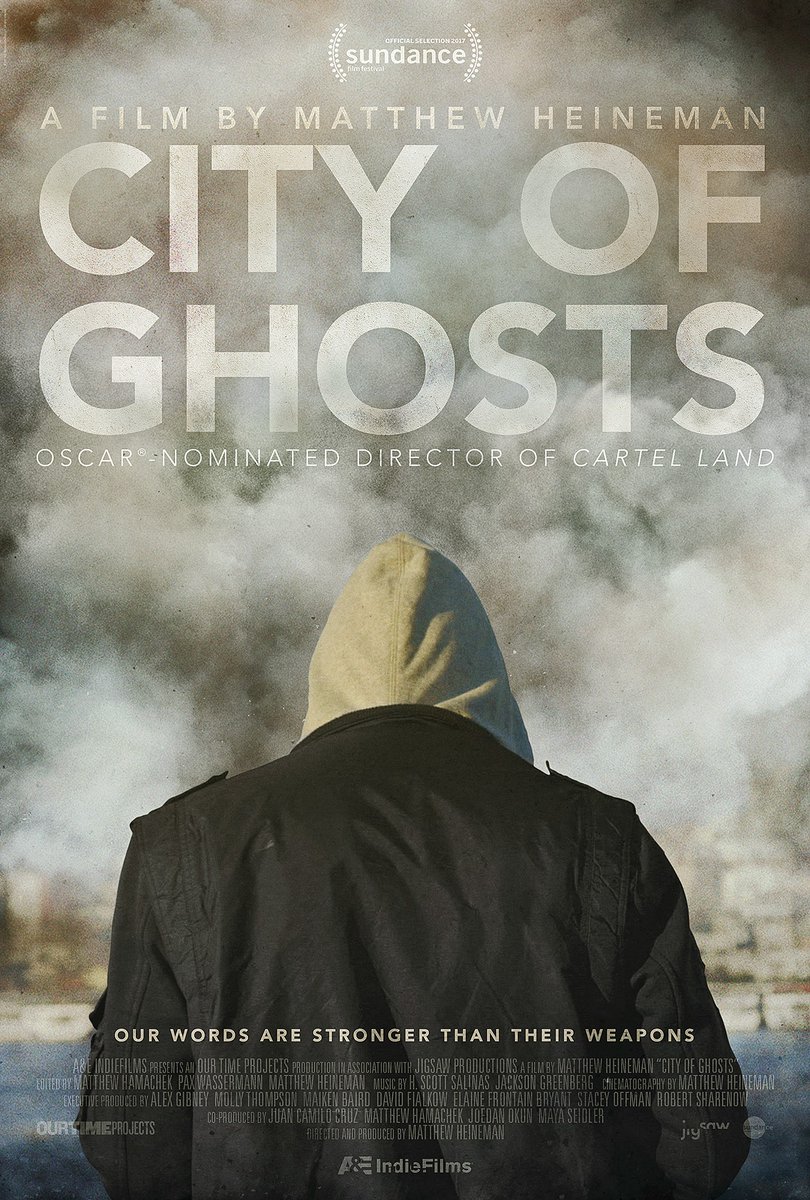
City of Ghosts Font
DocumentaryCity of Ghosts is a 2017 documentary film that follows the story of Raqqa is Being Slaughtered Silently, a group of citizen journalists who document the atrocities committed by ISIS in their home city of Raqqa, Syria.
The title of the film in the poster is set in Avenir 95 Black, a geometric sans-serif typeface designed by Adrian Frutiger in 1988. To learn more and download the font please click here.